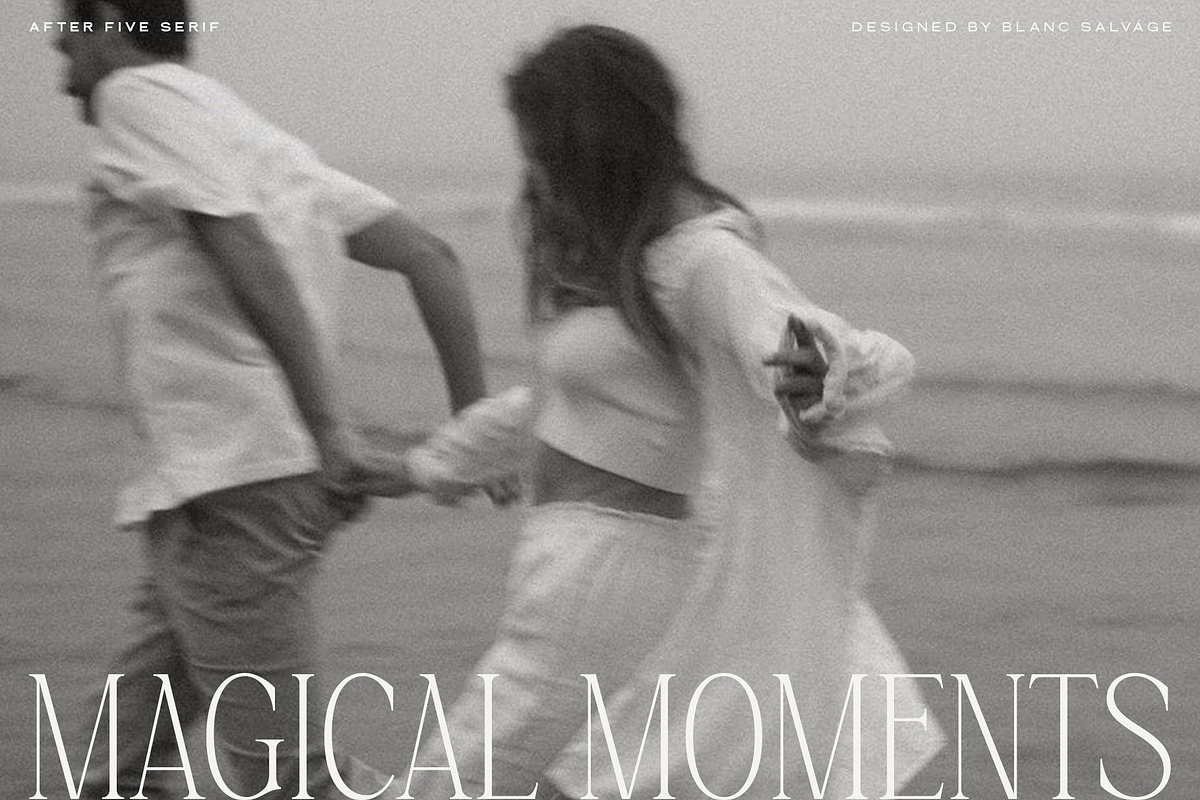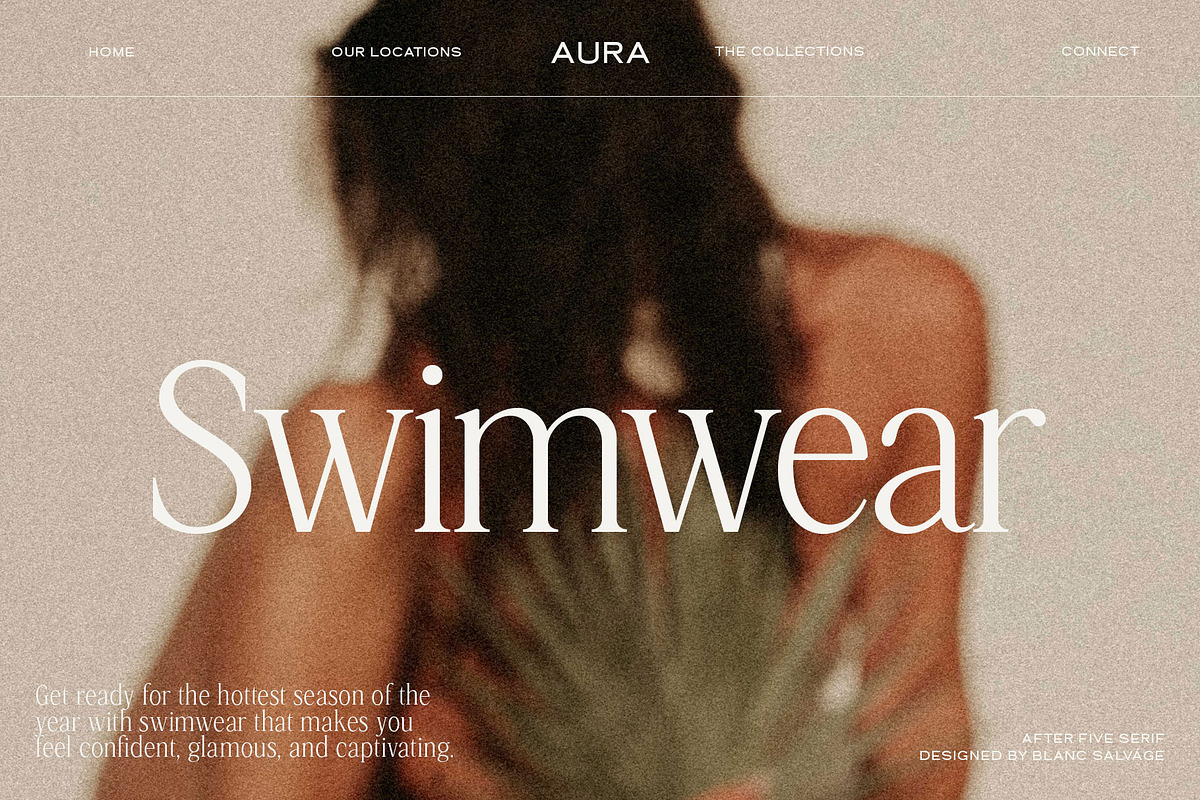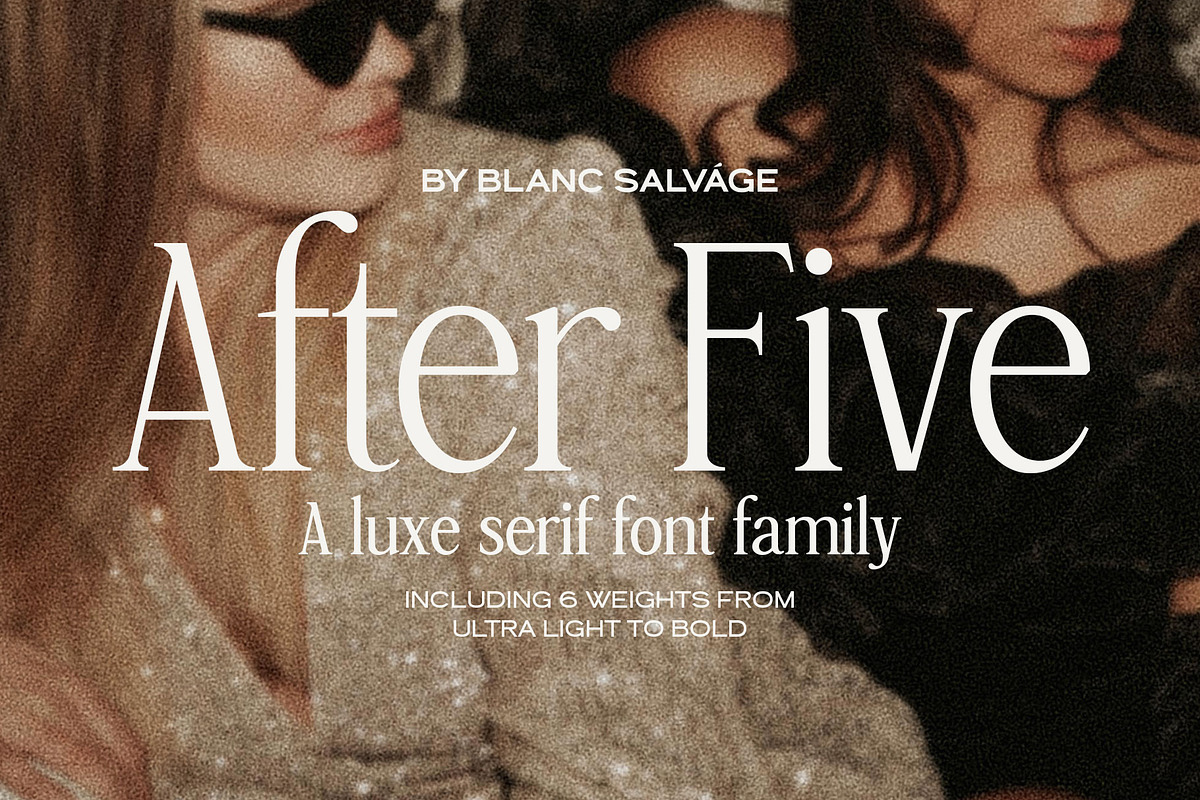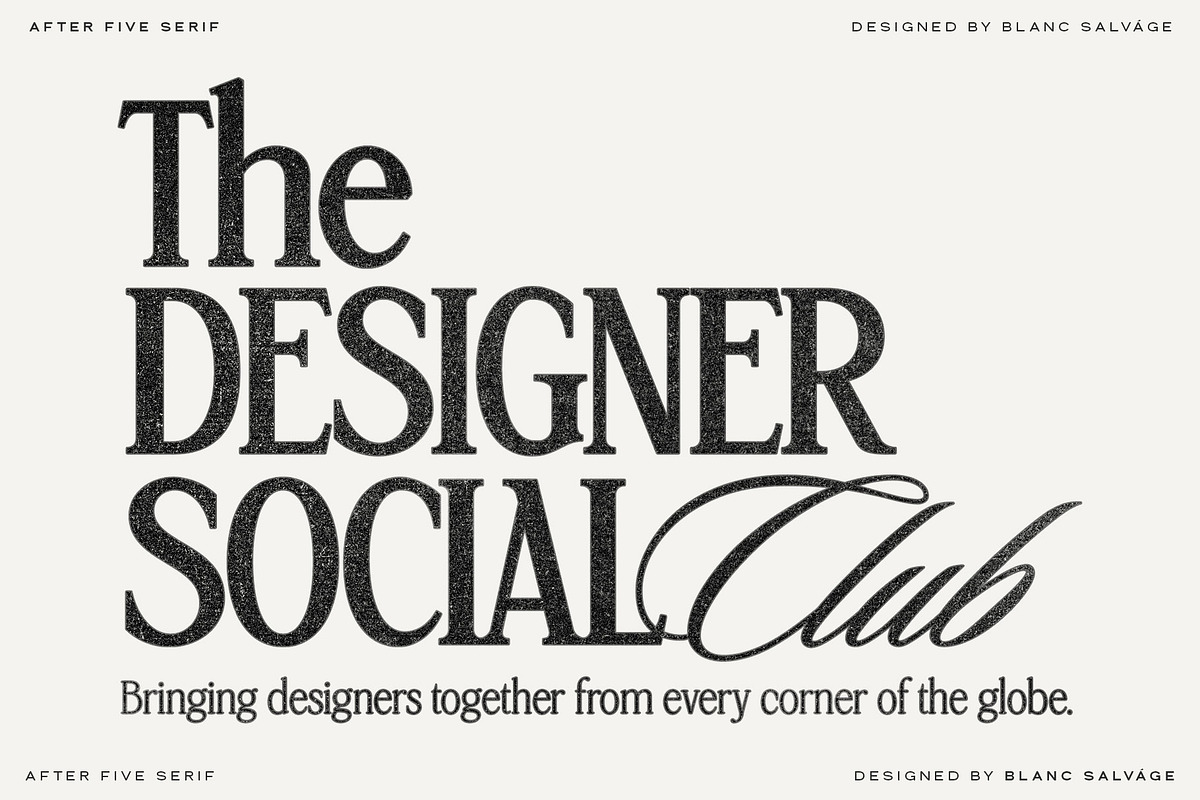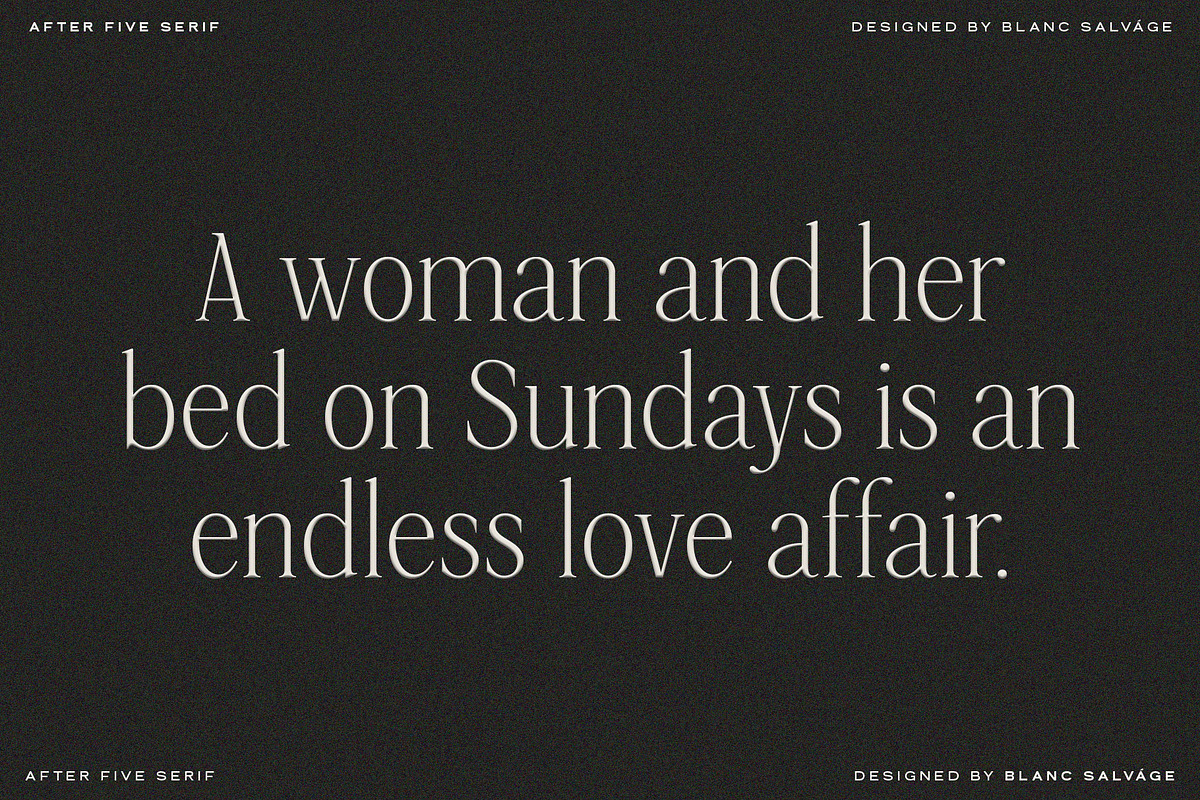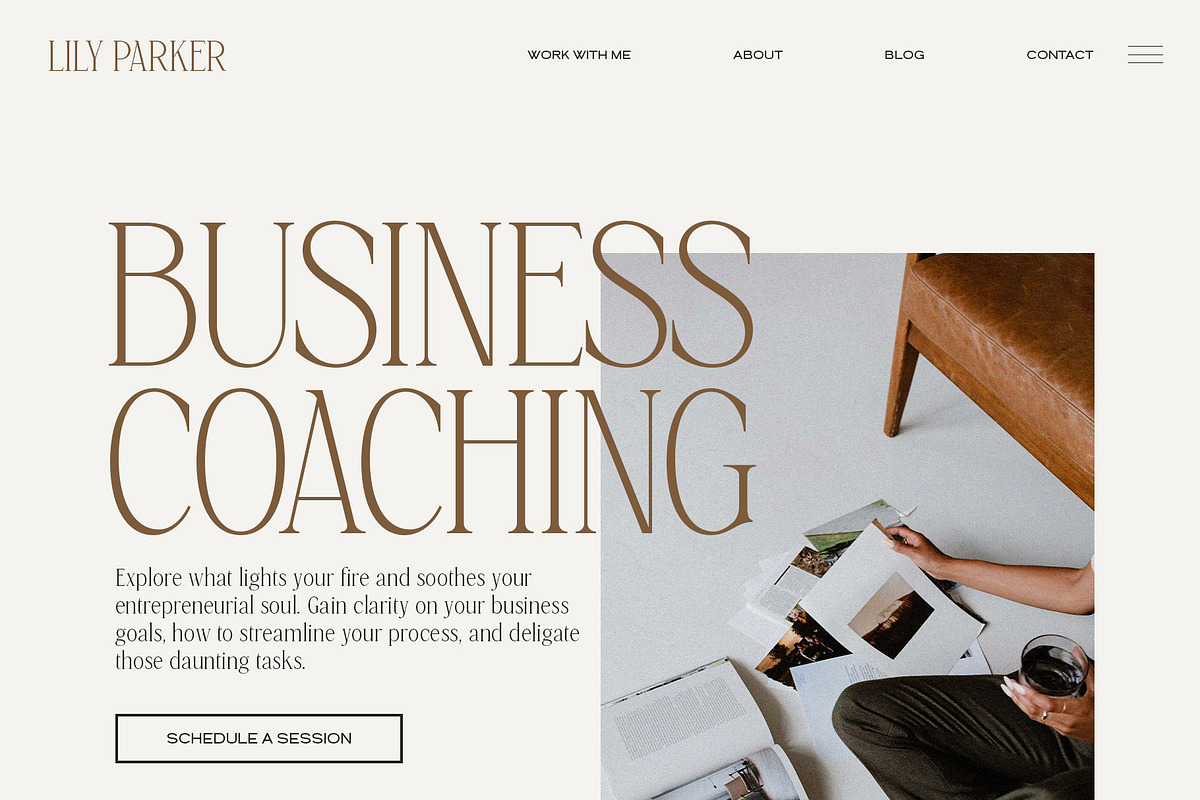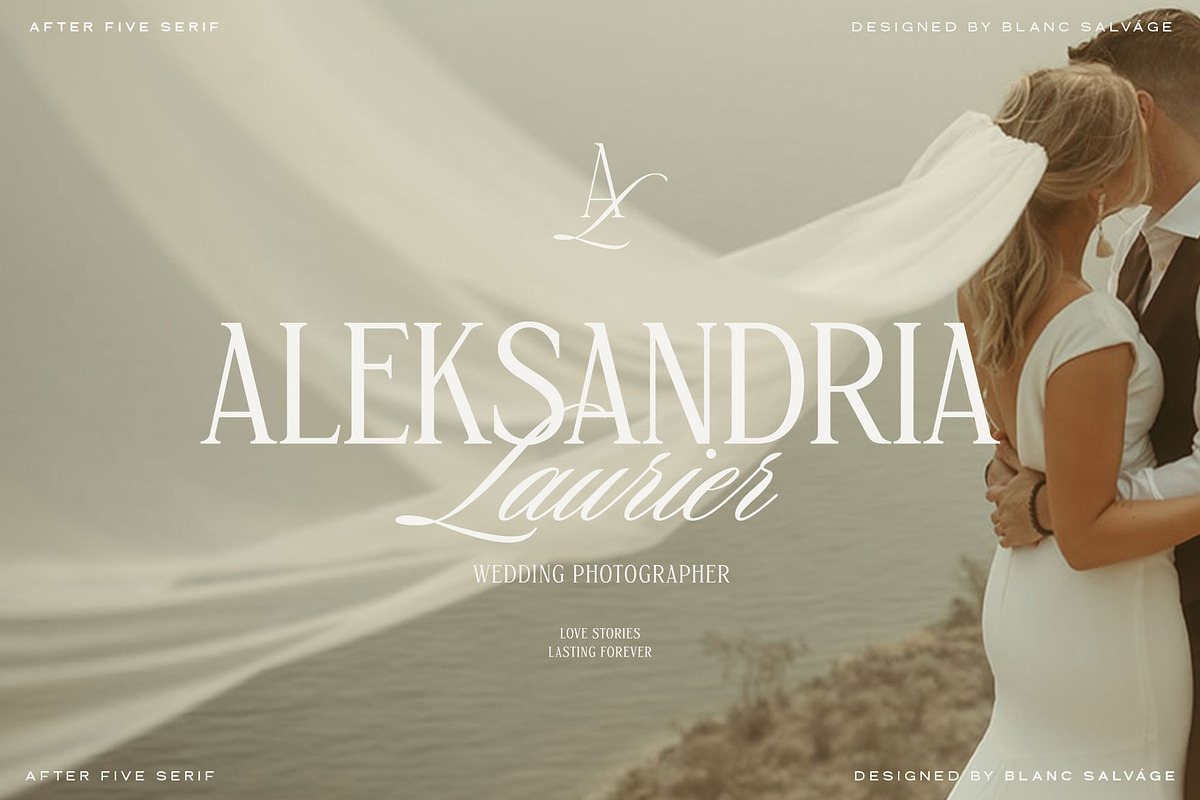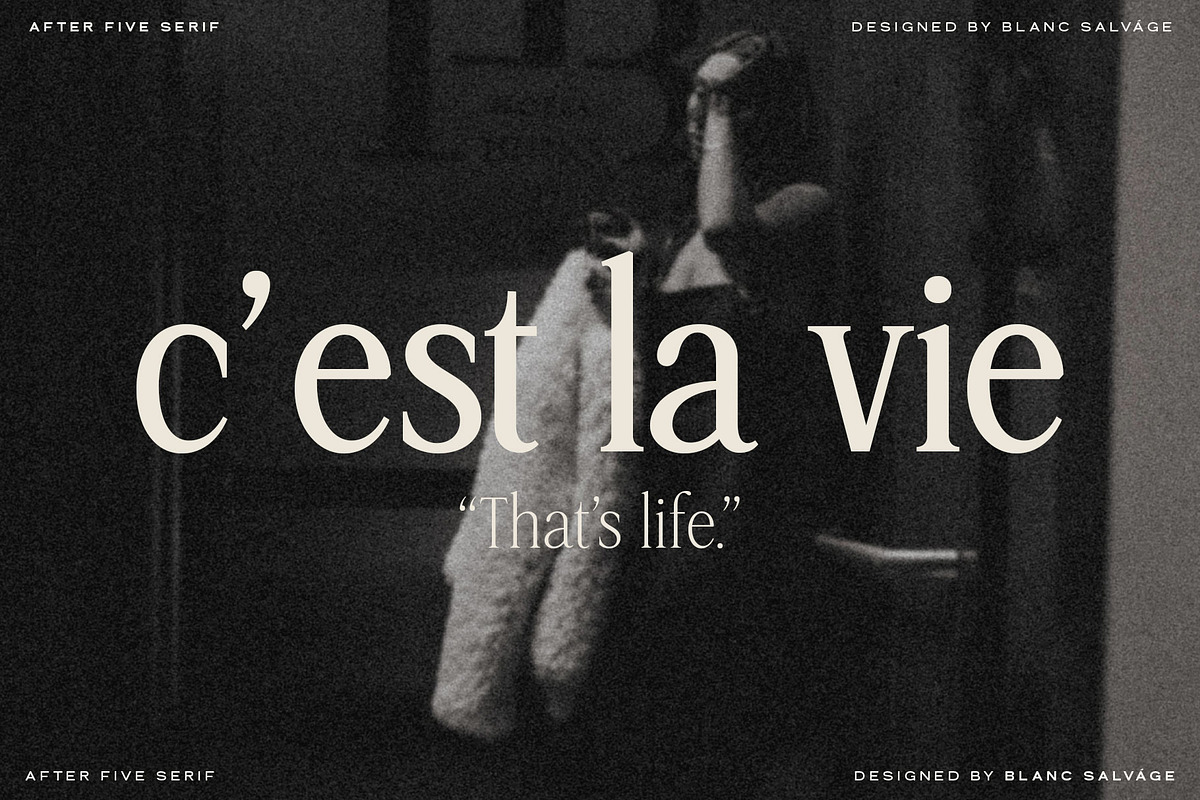
After Five Luxury Serif
Meet the luxe serif family that’s like a casual woman with her jeans and sports coat, but when she steps out into the night she has her black dress on with studded heels ready to strut.
Introducing, After Five — a 6-weight serif font family that dances with grace and sophisticated charm. Dress her down and leave her as is for an informal look or pair her with a beautifully crafted script to make her shine.
With the new year approaching and all the glitz and glam decor spread throughout the city, I envision this classy typeface to be used in after five invitations, luxury branding, editorial layouts, web design, and more.
Ultra Light - Bold (uppercase + lowercase)
Numbers and punctuation
Foreign language support